What Font Does Heart of the Beast Use?
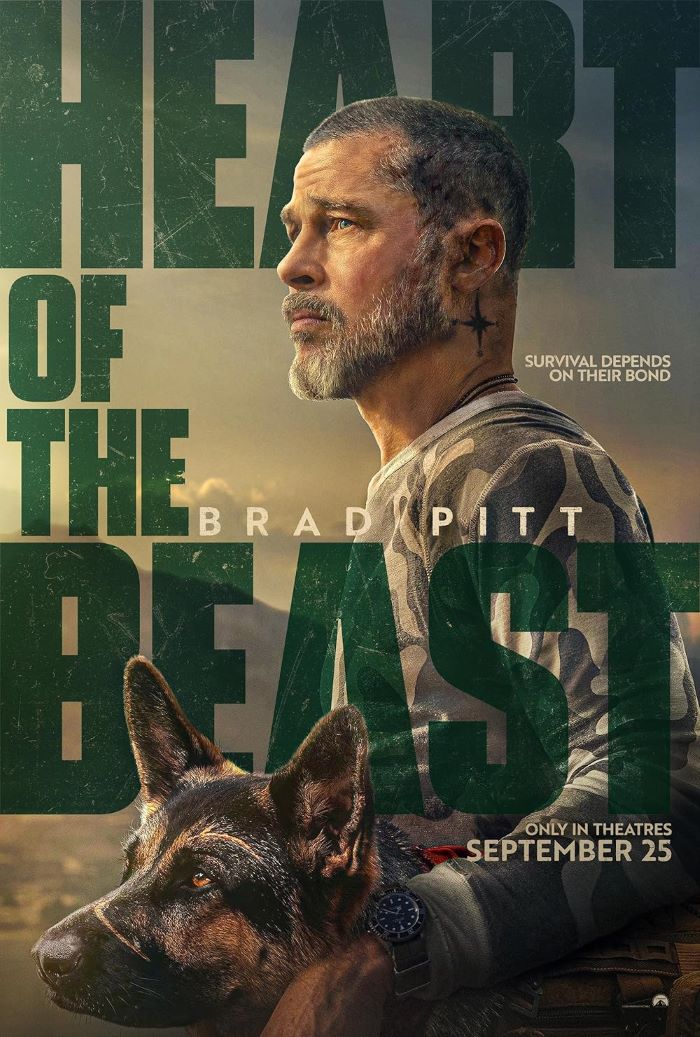
The Heart of the Beast Font used in the film’s title design is most likely a custom-designed display typeface created specifically for the movie’s branding and promotional materials. The lettering features bold, uppercase sans-serif forms with strong vertical strokes, tight spacing, and a heavy, grounded presence that reflects the film’s rugged survival theme. Because the original typeface appears to be custom, it is not publicly available. However, there is a free alternative font, Heading Now Trial, that closely captures its bold and powerful appearance, making it suitable for fan art, poster recreations, and concept design projects.